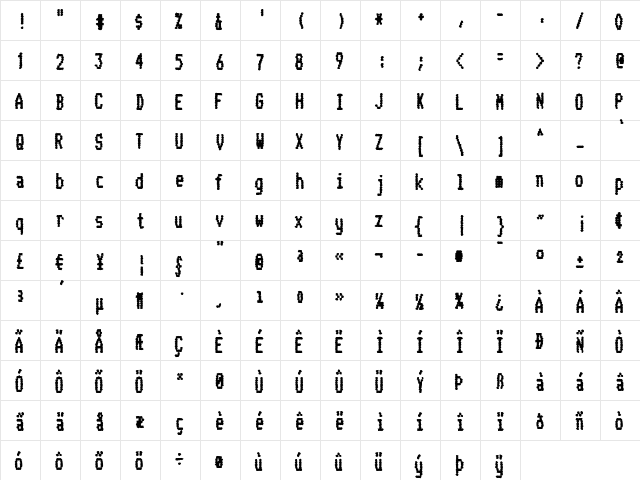
Telidon Ink CdHv Regular
| Foundry | Typodermic |
Design Context for Telidon Ink CdHv Typeface
Telidon Ink CdHv is a composed and adaptable typeface that performs quietly and consistently across a wide range of design contexts.